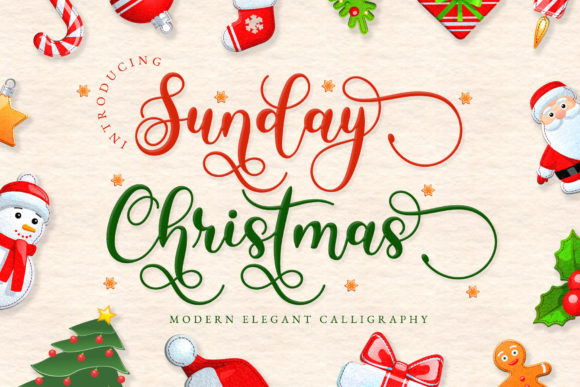
Enhance Your Web Design with Sunday Christmas Font
As a web designer, I recently embarked on a project to revamp a boutique online store. The goal was to create a visually appealing and user-friendly experience that would resonate with the brand's elegant and romantic aesthetic. After some exploration, I stumbled upon Sunday Christmas, a premium handwritten font that seemed to perfectly embody the charm and sophistication we were aiming for.
First Impressions and Visual Characteristics
When I first tested Sunday Christmas in the hero section of the homepage, I was immediately struck by its friendly and fresh appearance. The font has a rich, elegant quality that adds a touch of romance to any design. Its flowing, cursive style is both inviting and modern, making it an excellent choice for a variety of digital projects.
Using Sunday Christmas in Website Headers and Hero Sections
The primary use of Sunday Christmas in our project was in the website headers and hero sections. The font's unique personality and style made it ideal for creating eye-catching headlines and titles. We used it for the main banner, where it stood out beautifully against a soft, pastel background, enhancing the overall visual appeal and drawing visitors in.
Readability and Visual Hierarchy
One of the key considerations when using a decorative font like Sunday Christmas is readability. While it’s perfect for short, impactful text, it may not be as suitable for longer paragraphs or body copy. To ensure a balanced design, we paired Sunday Christmas with a clean, simple sans serif font for the body text. This combination maintained a clear visual hierarchy and improved the overall readability of the page.
Enhancing Brand Trust and User Engagement
The use of Sunday Christmas in our design not only added a creative and romantic touch but also helped in building brand trust. The font's elegance and professionalism gave the site a polished and high-quality feel, which is crucial for a boutique online store. Visitors were more engaged, spending more time exploring the site and interacting with the content.
Best Use Cases for Sunday Christmas
- Holiday-themed Greeting Cards: The font's festive and elegant nature makes it perfect for holiday greetings and special occasions.
- Boutique Online Store Banners: Use it for eye-catching banners and promotional graphics to draw in customers.
- Creative Portfolio Headlines: Add a touch of elegance to your portfolio by using Sunday Christmas for headings and titles.
- Coaching Website Logos: Incorporate it into logo designs to give a personal and professional touch.
- Course Sales Page Headlines: Make your course offerings stand out with this beautiful, handwritten font.
Mobile and Responsive Design Considerations
For mobile and responsive layouts, it’s important to test the font at various sizes and resolutions. Sunday Christmas performs well on smaller screens, but it’s always a good idea to check how it looks on different devices. We found that using a slightly larger font size and adjusting line spacing helped maintain readability on mobile devices.
Font Pairing and Design Assets
To create a cohesive and professional look, we paired Sunday Christmas with a versatile sans serif font for the body text. This combination provided a good balance between creativity and readability. Additionally, we used the same fonts across all design assets, including social media graphics and email newsletters, to maintain a consistent brand identity.
Checking Included Styles and Licensing
Before using Sunday Christmas in our client projects, we checked the included styles, webfont availability, and file formats. The font comes with a range of alternates and weights, which allowed us to add subtle variations to the design. It’s also important to verify the commercial licensing terms to ensure you can use the font for your specific needs, whether it’s for a website, online store, or digital templates.
In conclusion, Sunday Christmas is a versatile and elegant handwritten font that can significantly enhance the visual appeal and user experience of your web design projects. By carefully considering its use in headers, hero sections, and other key areas, you can create a more engaging and polished online presence. Whether you’re designing a boutique online store, coaching website, or creative portfolio, Sunday Christmas is a valuable addition to your design toolkit.